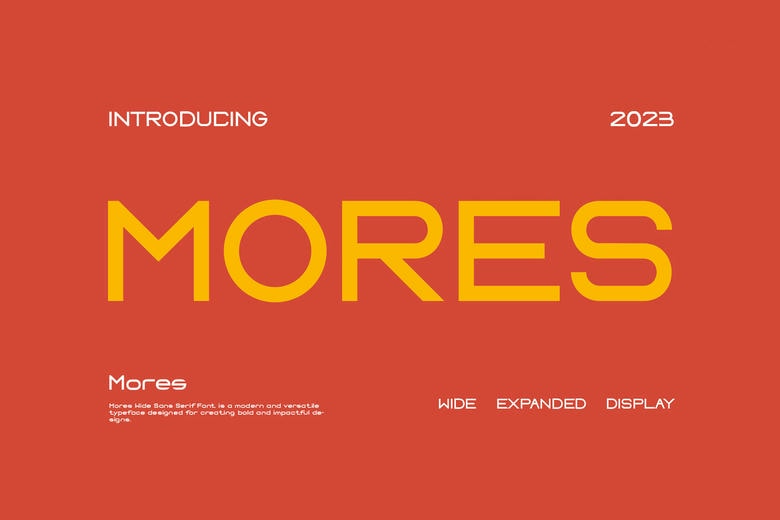
Mores Font
Mores is a beautiful and daring sans serif typeface, designed in such way so that it could add a good taste to headline, as well as logotype-related undertakings. This typeface is powerful, authoritative and dynamic and can impose masses of nostalgic character to your artworks.
Mores Sans Serif Font